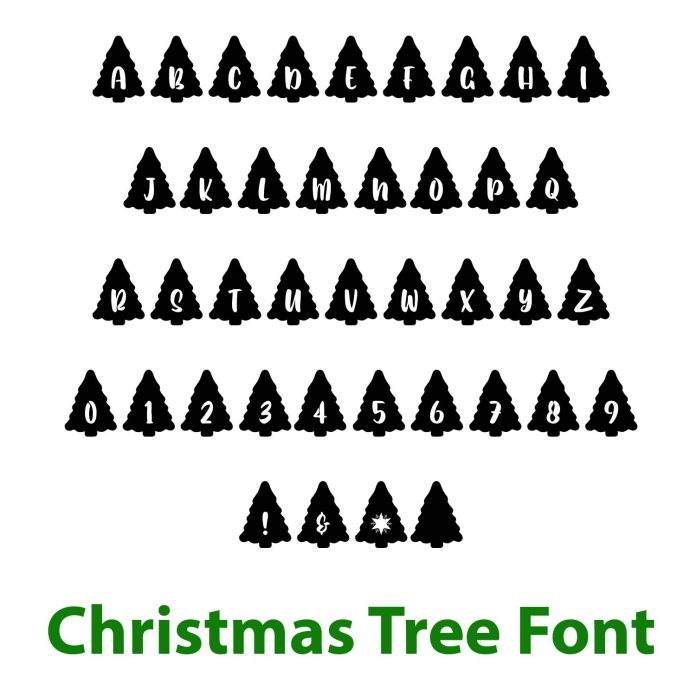
Christmas Tree is a fun and playful dingbat font featuring a Christmas tree shape with letters and numbers in the negative space. Perfect for adding a fun touch to your Christmas projects or decorations. This OTF file includes letters, numbers 0-9, !, &, a blank (comma) and snowflake (period)